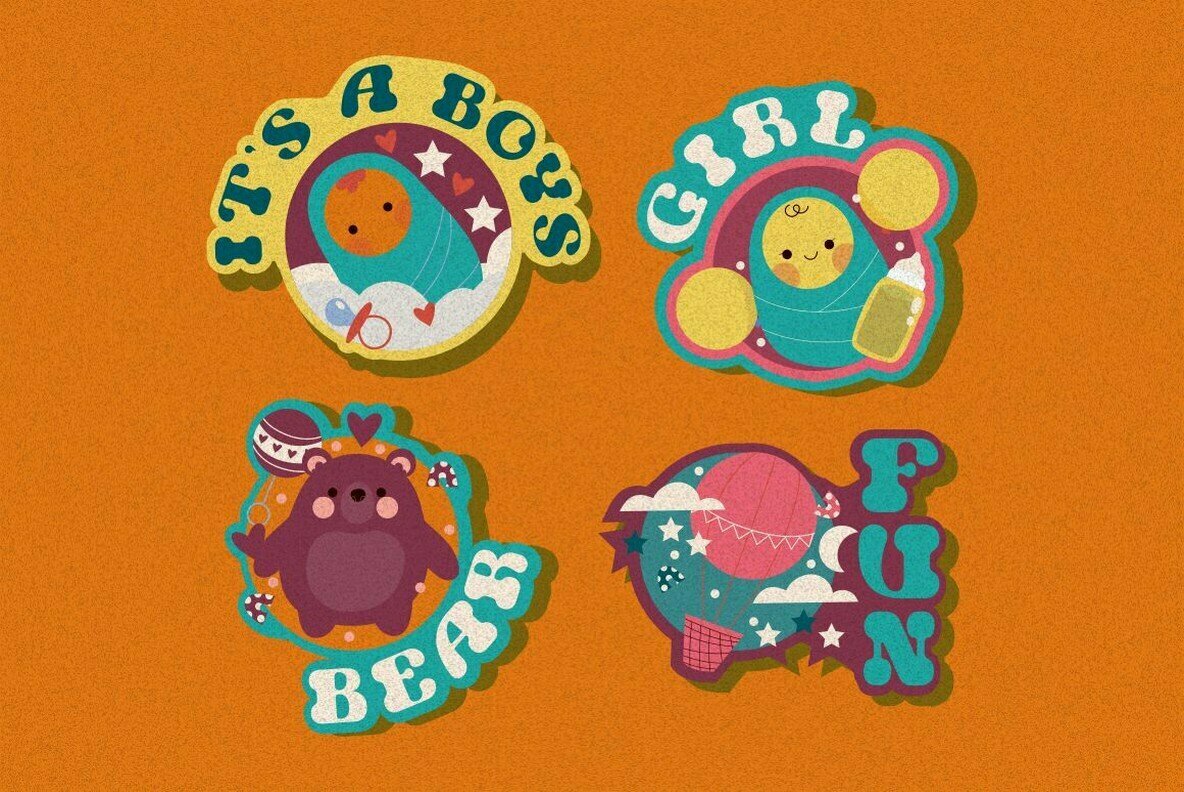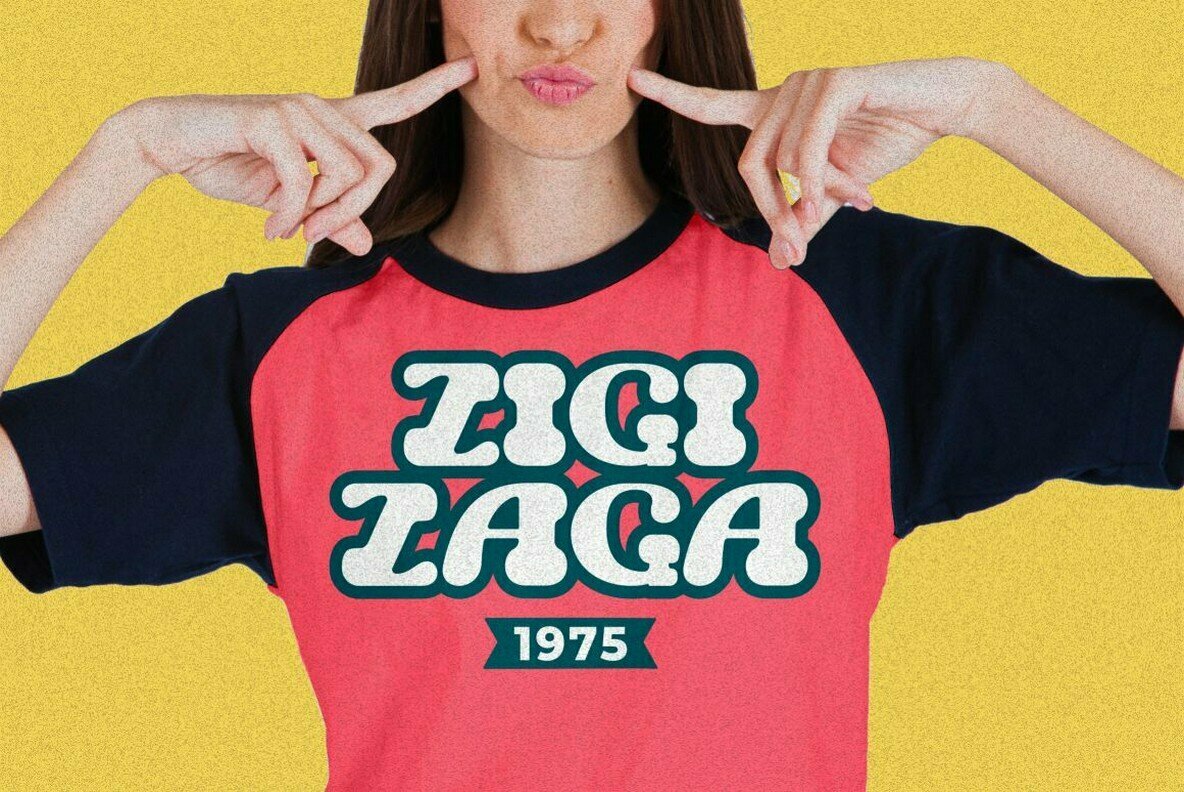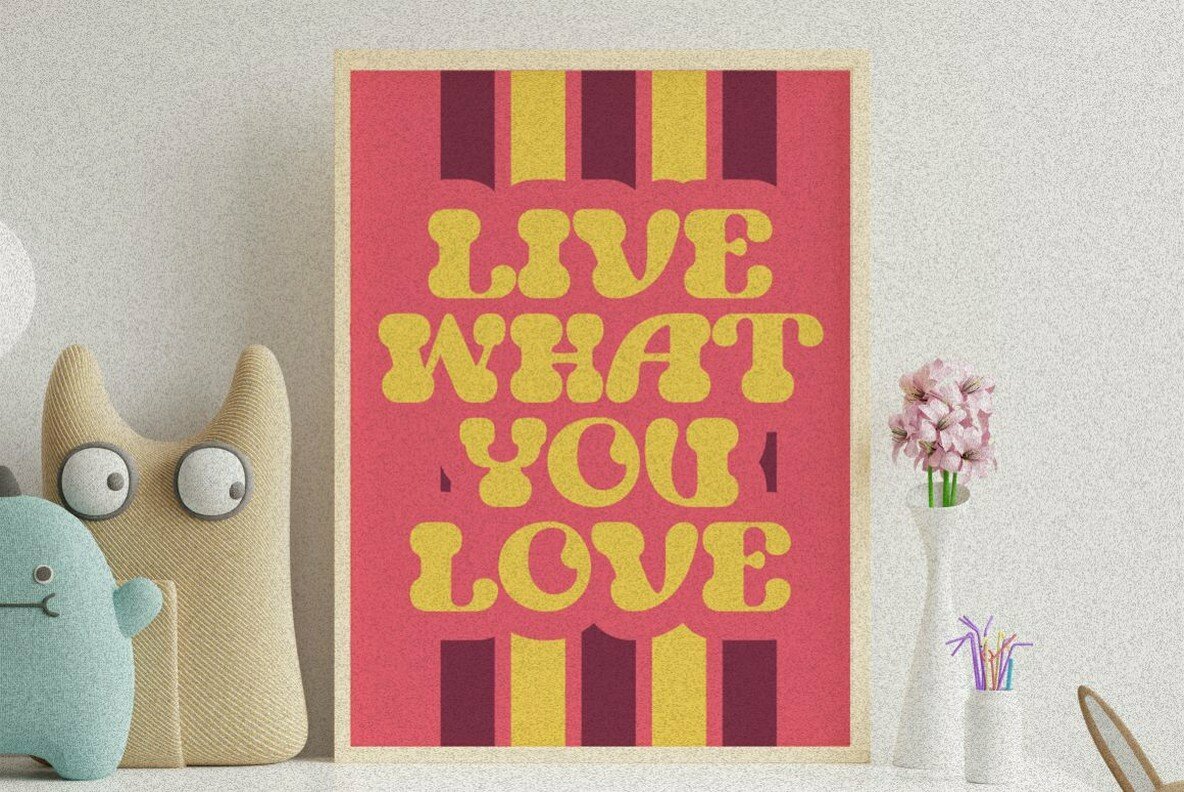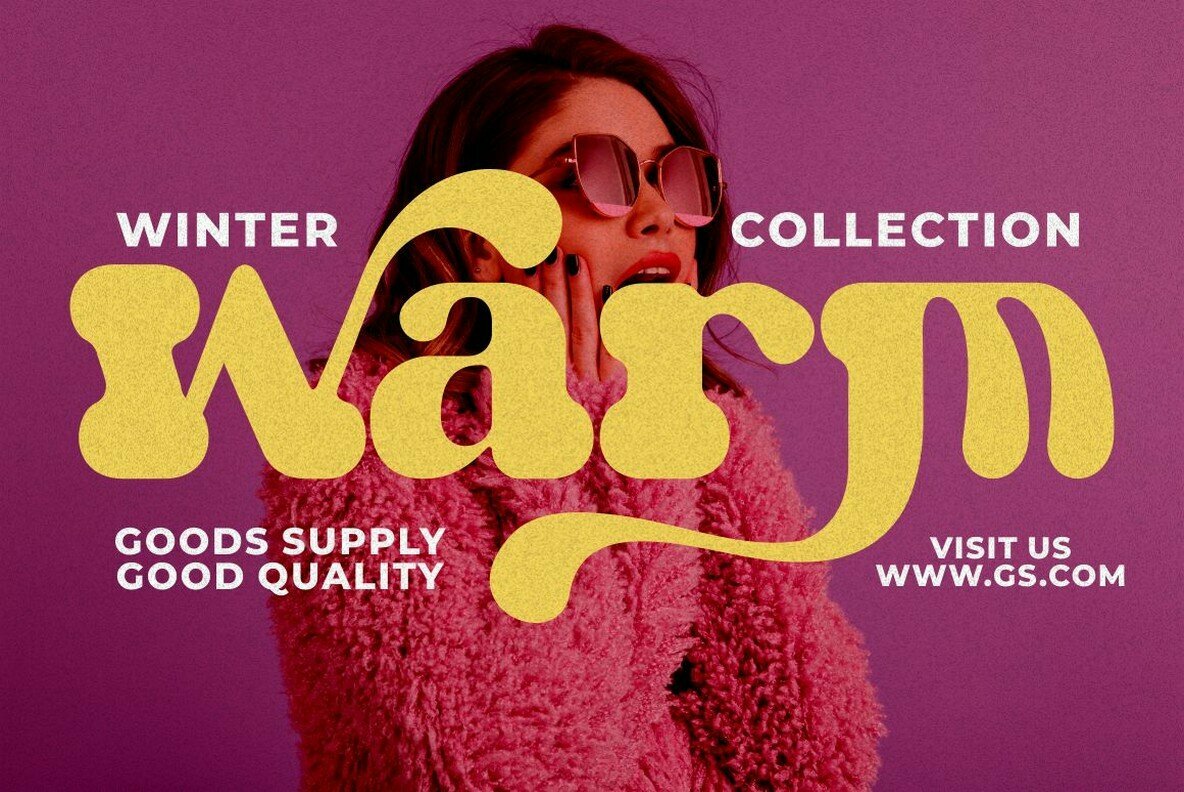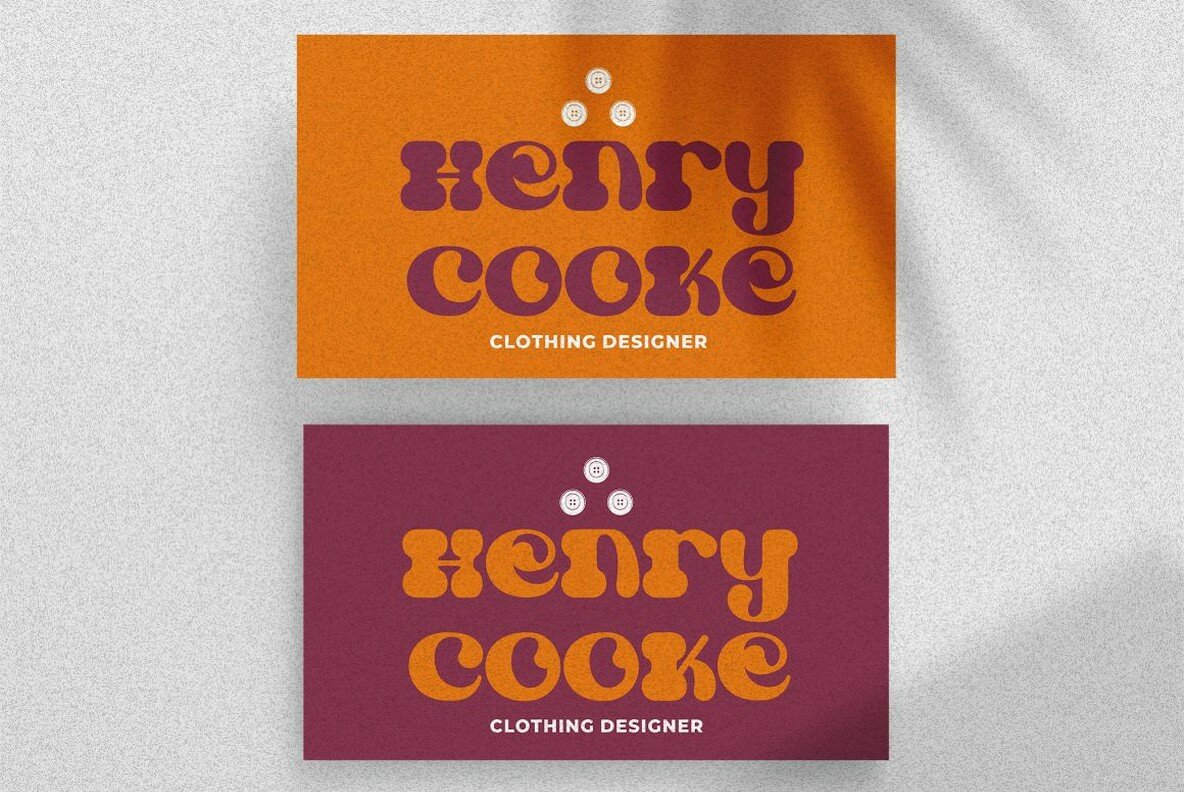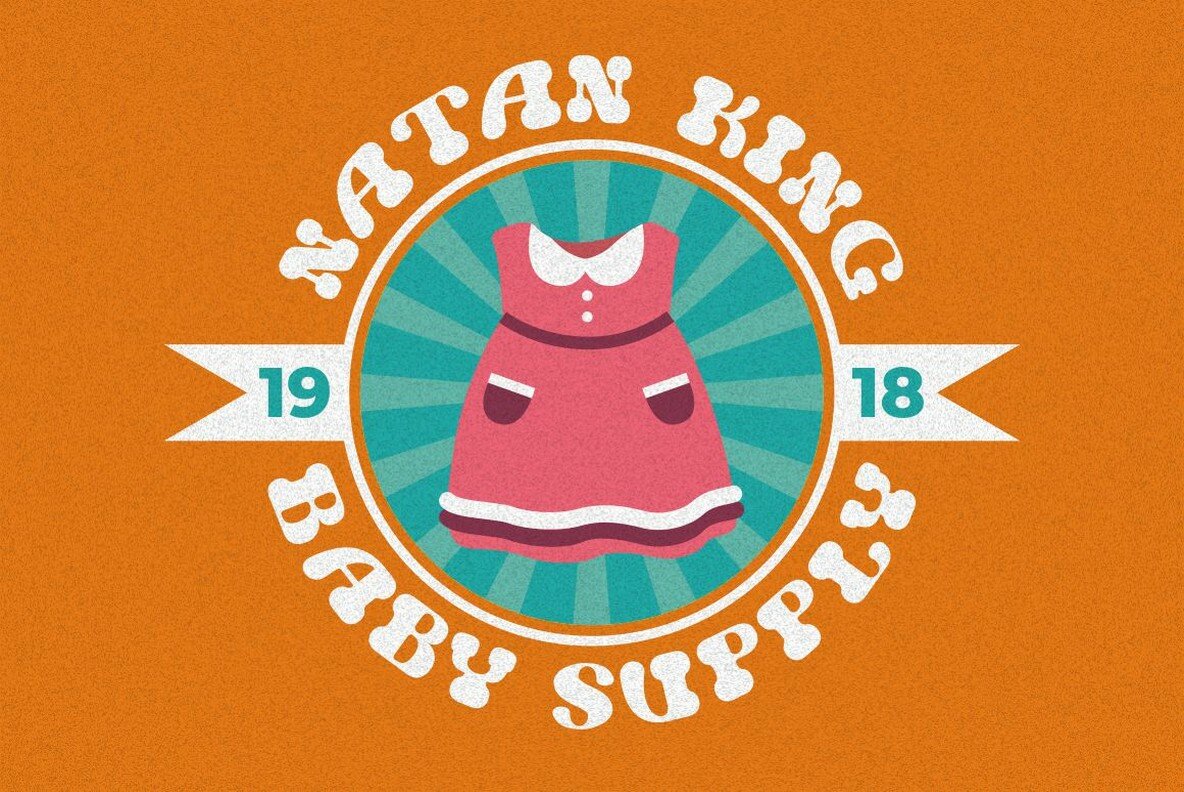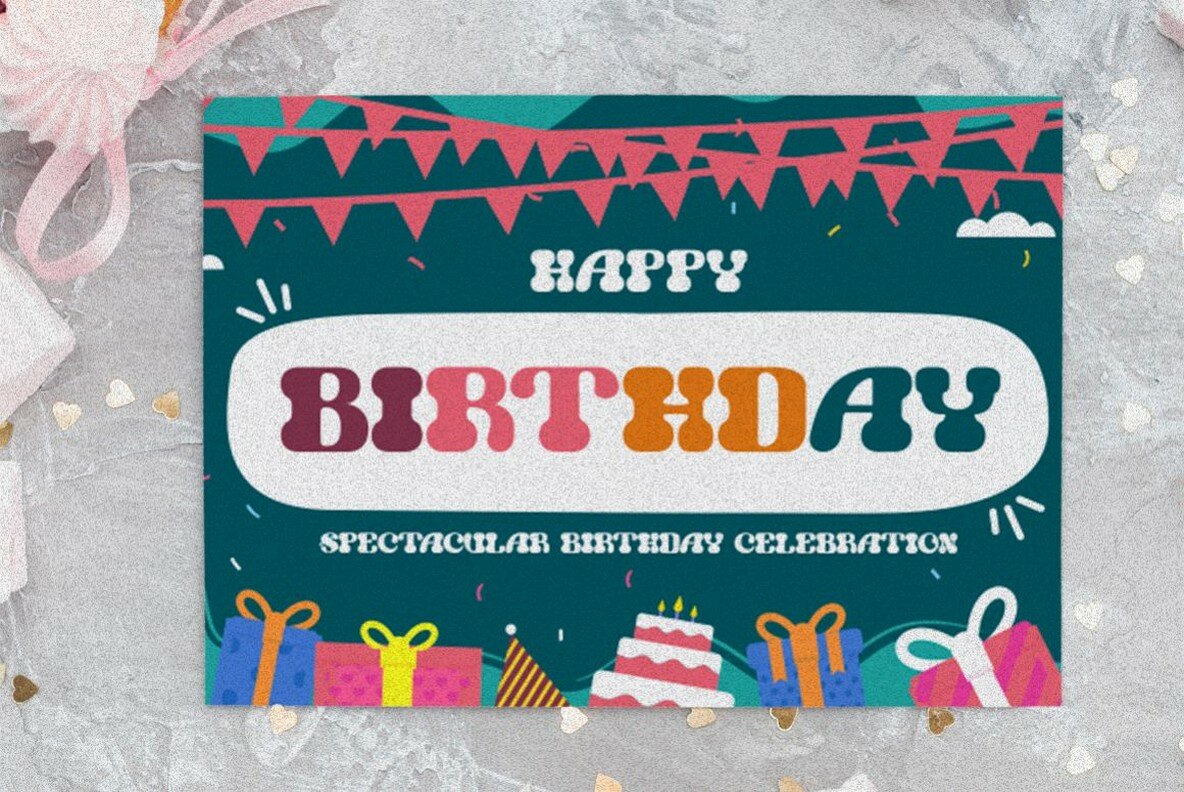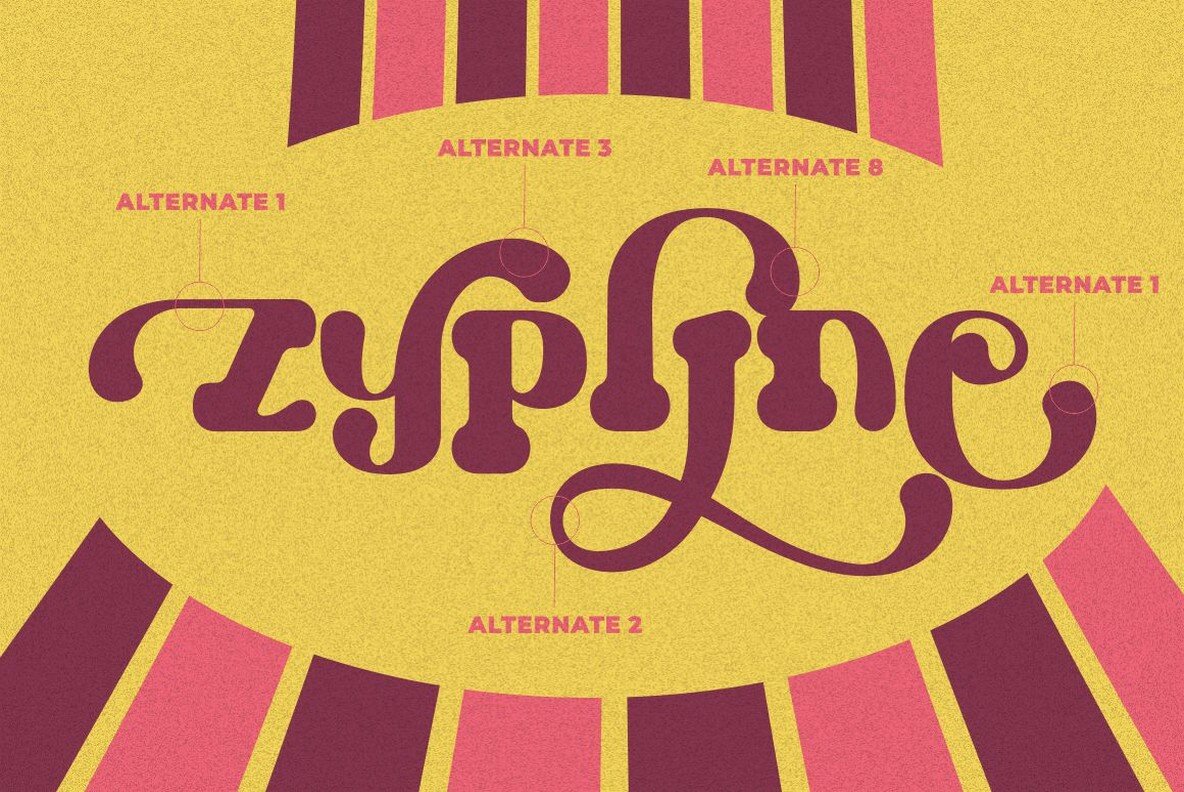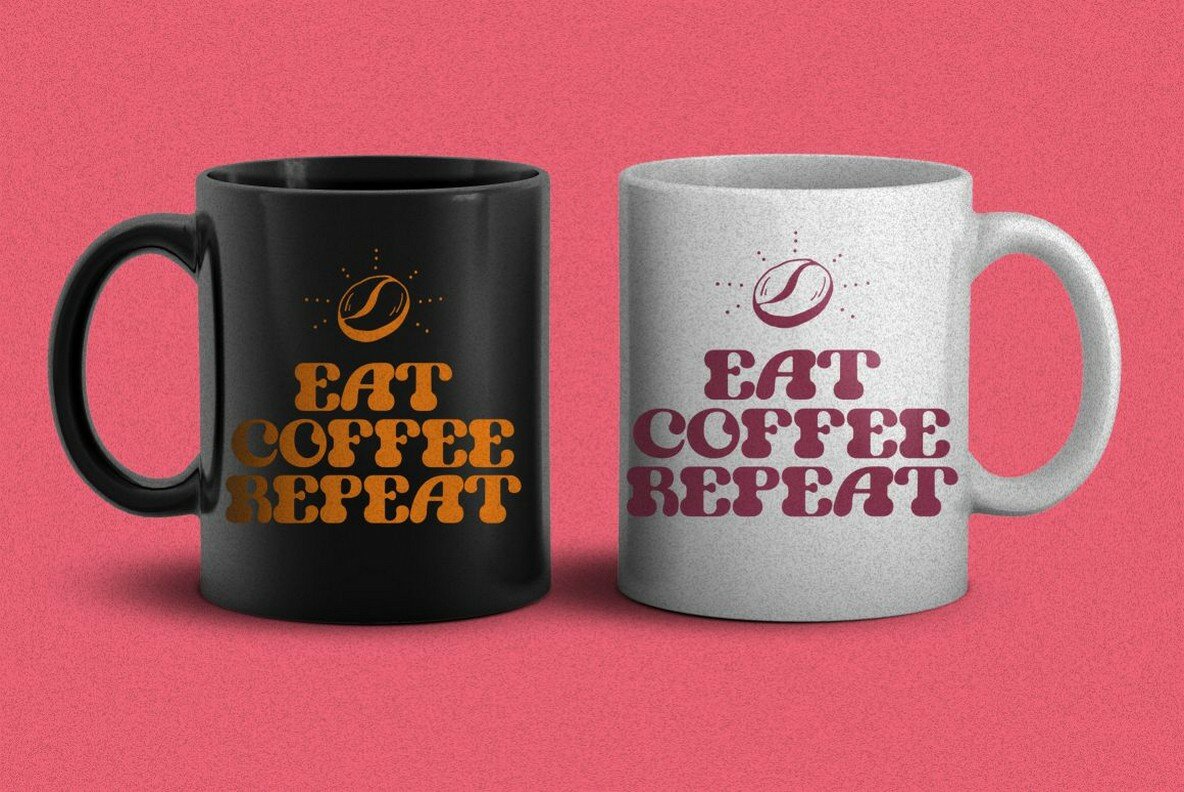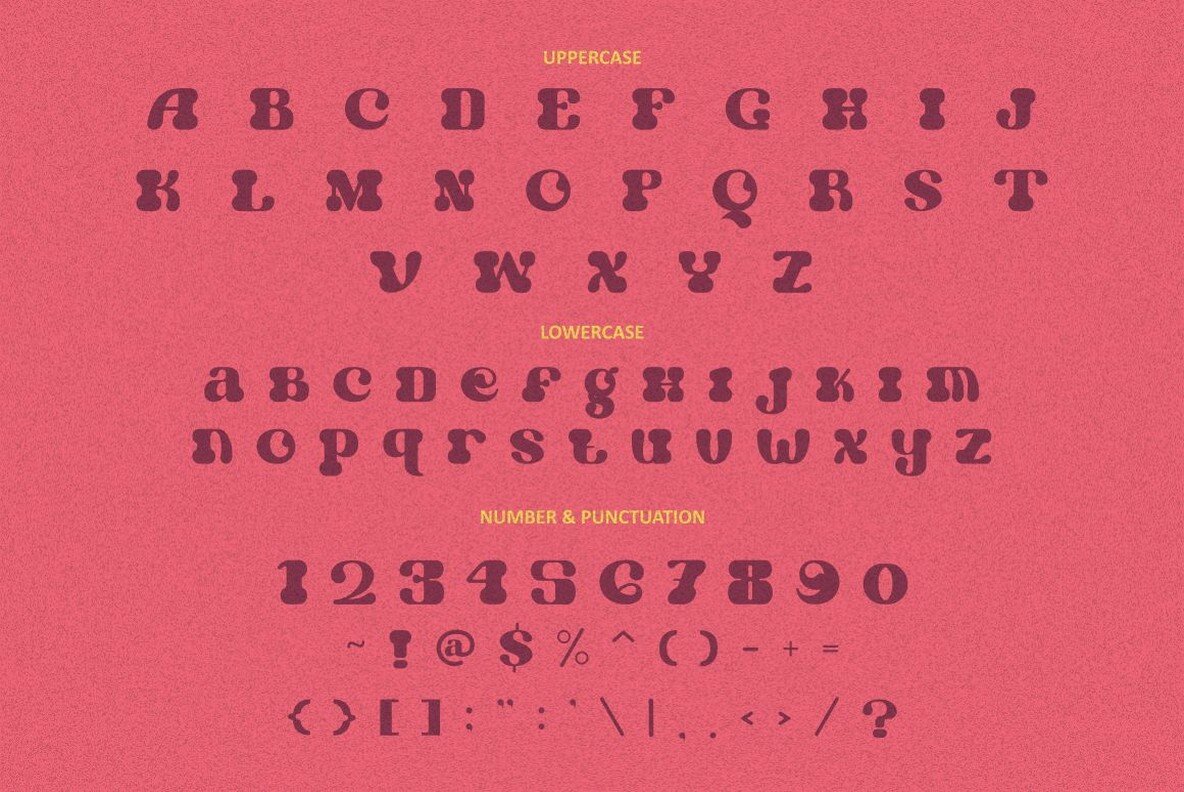
The Gold Ring Font
The Gold Ring
The Gold Ring is a bold retro style serif font with strong character and soft features. The Gold Ring is equipped with Swash, Stylistic and Titling alternates as well as with Standard and Discretionary Ligatures
And this font The Gold Ring is a stylish font that is both retro and bold font. It's thick curves give a 70s groovy vibe with the serifs bringing it slightly back to traditional. Comes with alternatives and ligatures, helps to create stunning logos, quotes, posts, blog posts. branding projects, magazine imagery, wedding invitations, and much more.